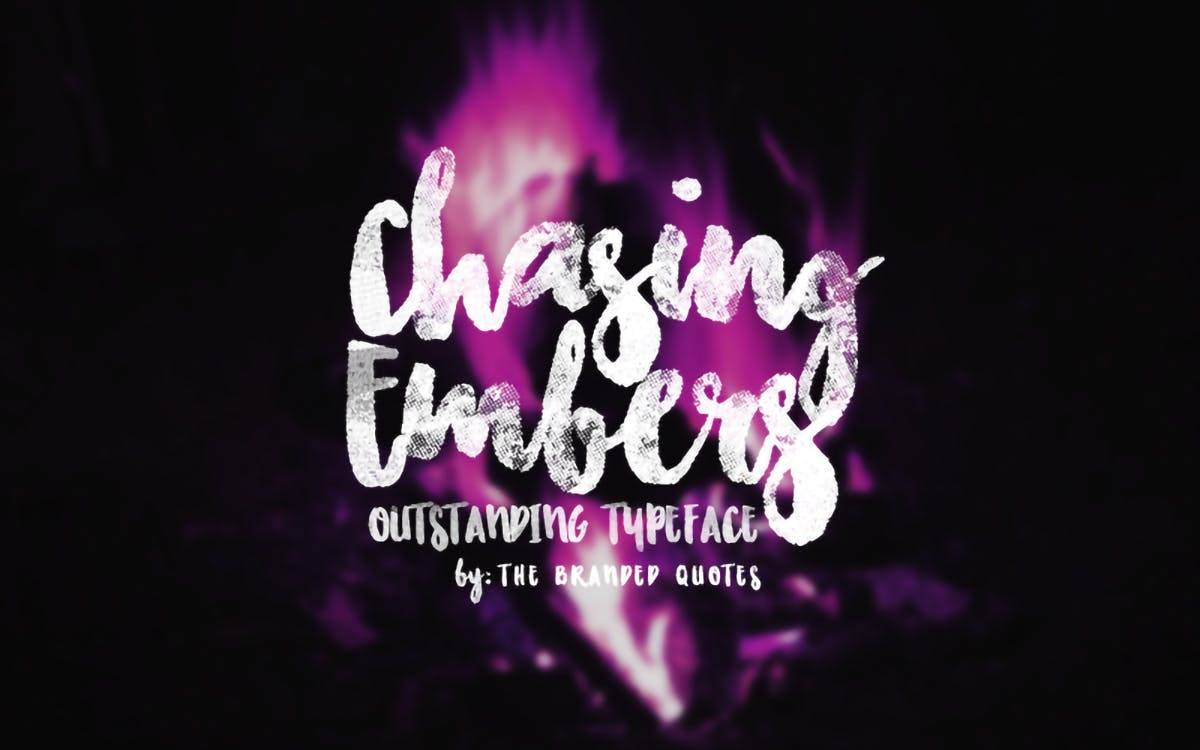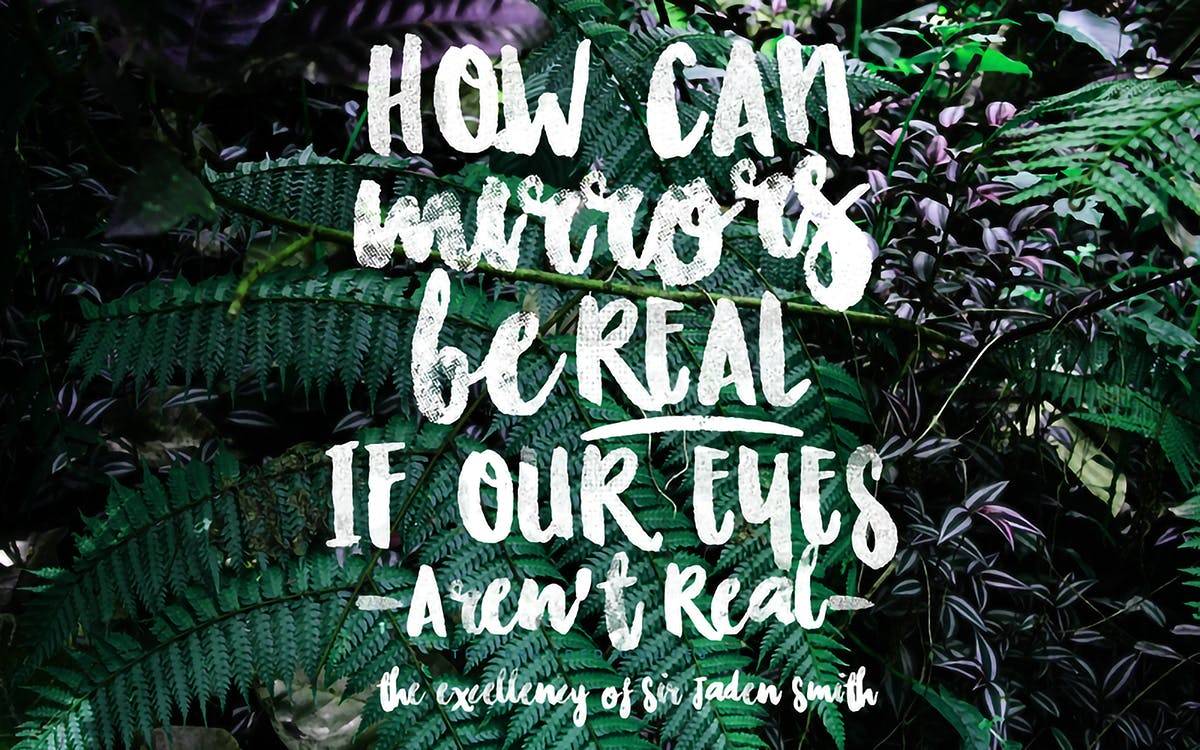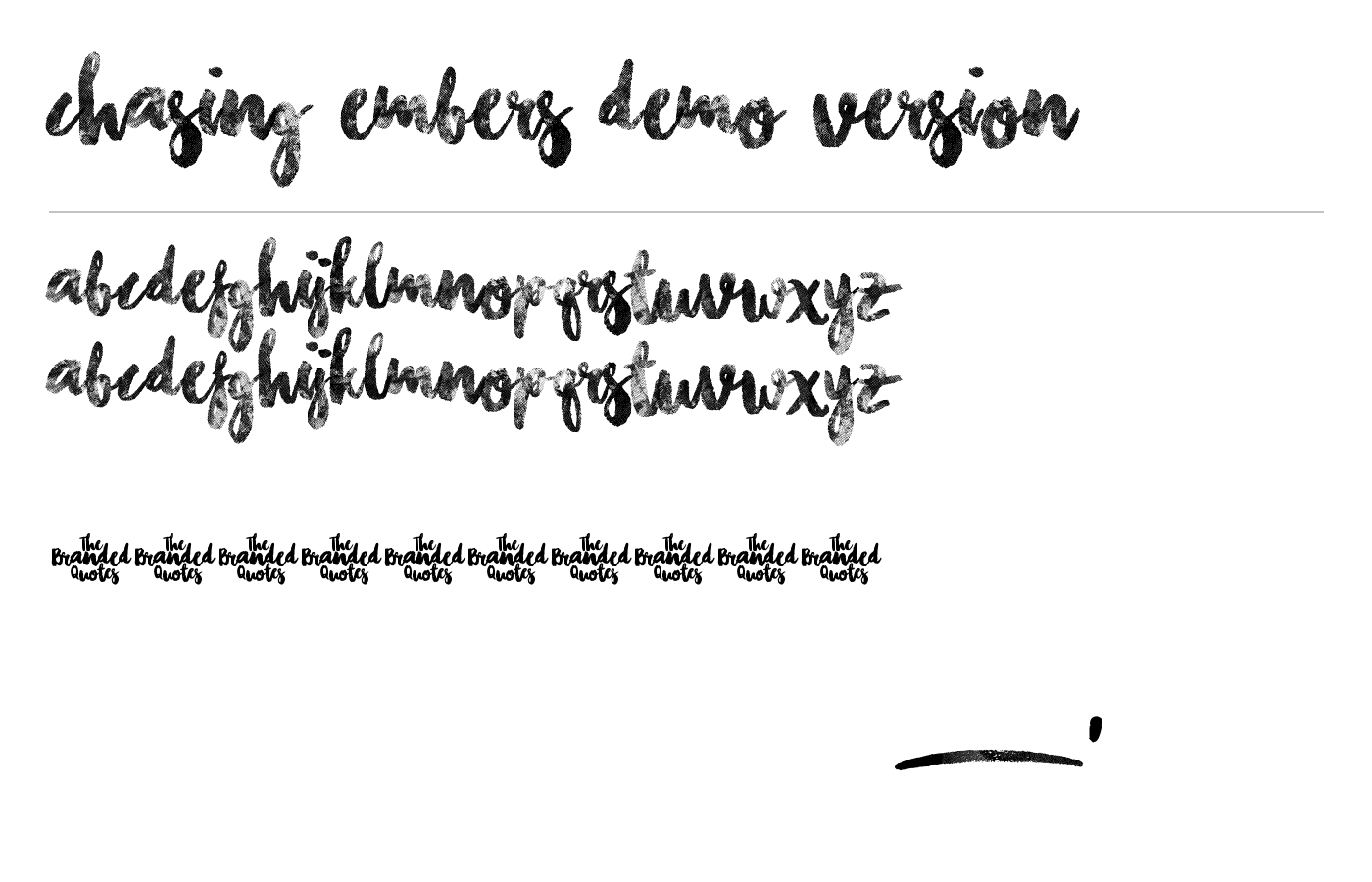
Chasing Embers Demo is a bold, textured script font that exudes a lively and artistic vibe with its brushstroke style and uneven ink flow. Its fluid, hand-painted look makes it perfect for creative projects that need a personal, expressive touch, such as logos, posters, and social media graphics. This font shines when used for headlines and branding that want to convey warmth, creativity, and a sense of handcrafted charm.
Chasing Embers Demo
About Chasing Embers Demo
| Font family | Chasing Embers Demo |
| Designer | The Branded Quotes |